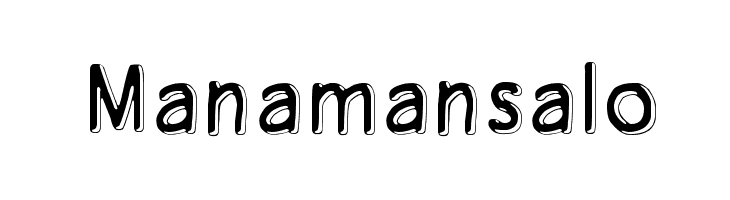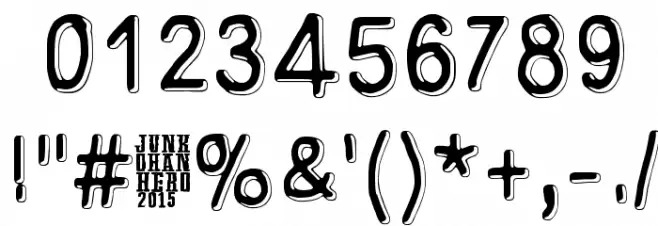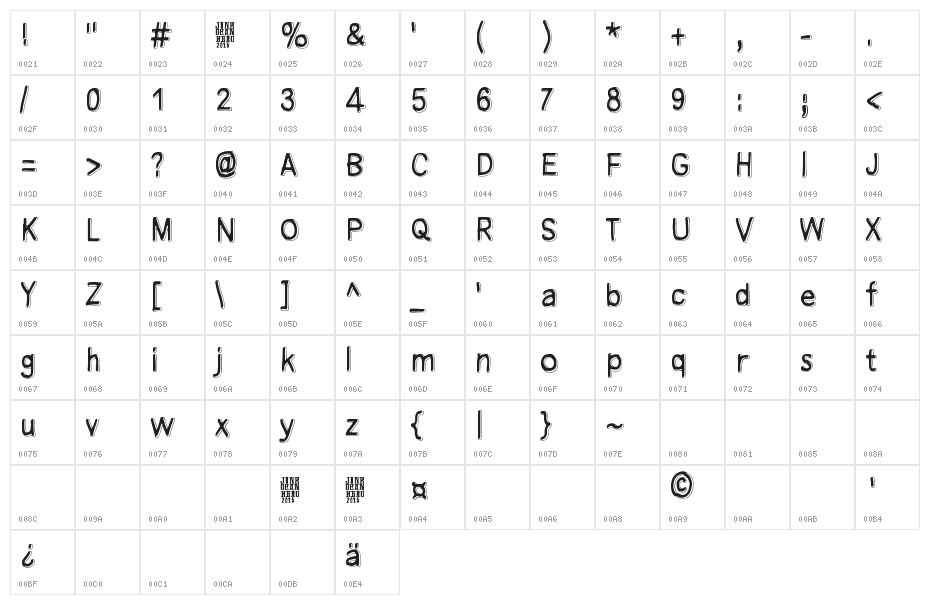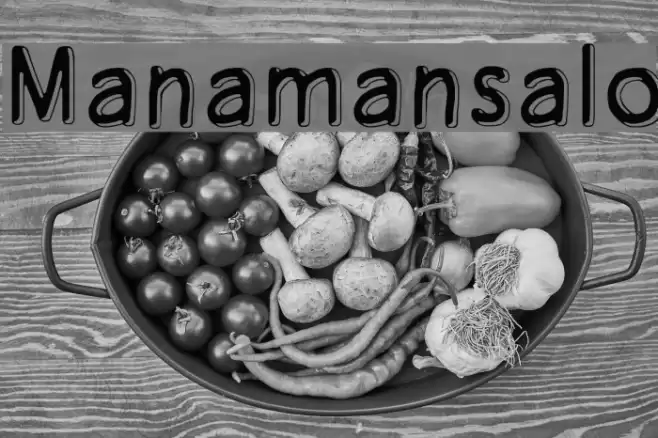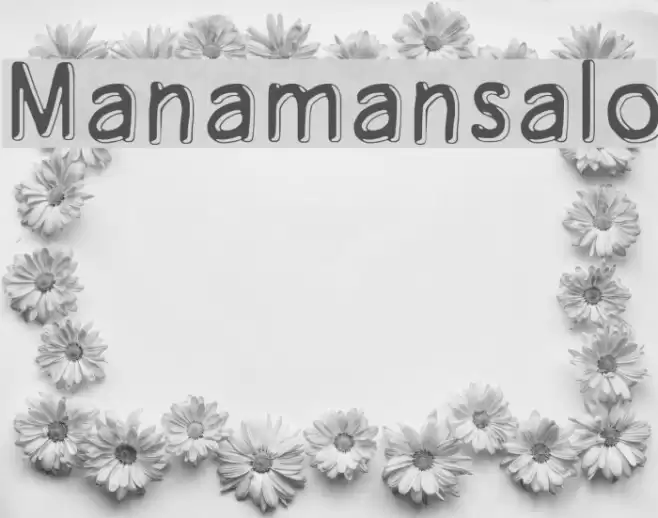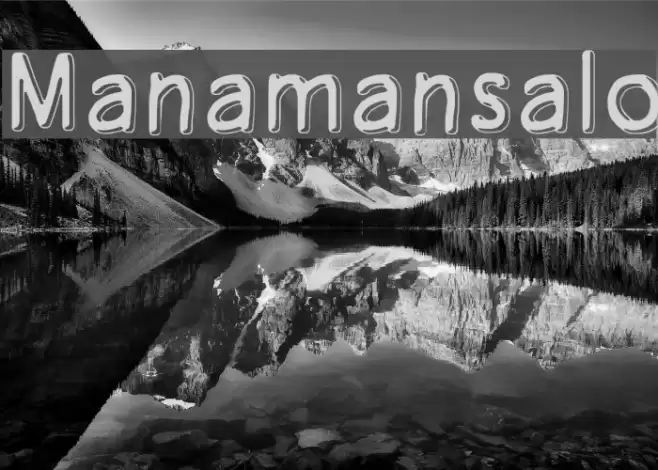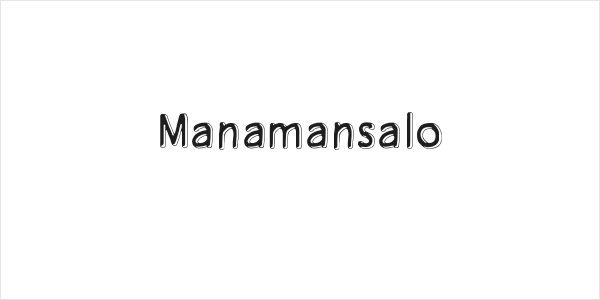
Manamansalo Font
Manamansalo Description
This font features a playful and bold style with a hand-drawn aesthetic. Each character is outlined with a thick black border, giving it a distinct and eye-catching appearance. The letters are slightly irregular, adding to the whimsical and informal feel. The font maintains a consistent weight throughout, with rounded edges that soften its overall look. It includes a full set of uppercase and lowercase letters, numbers, and a variety of special characters, making it versatile for different design needs.
| Overall Style | Playful, Hand-drawn |
| Proposed Projects | Ideal for children's book covers, playful branding, posters, and creative invitations. |